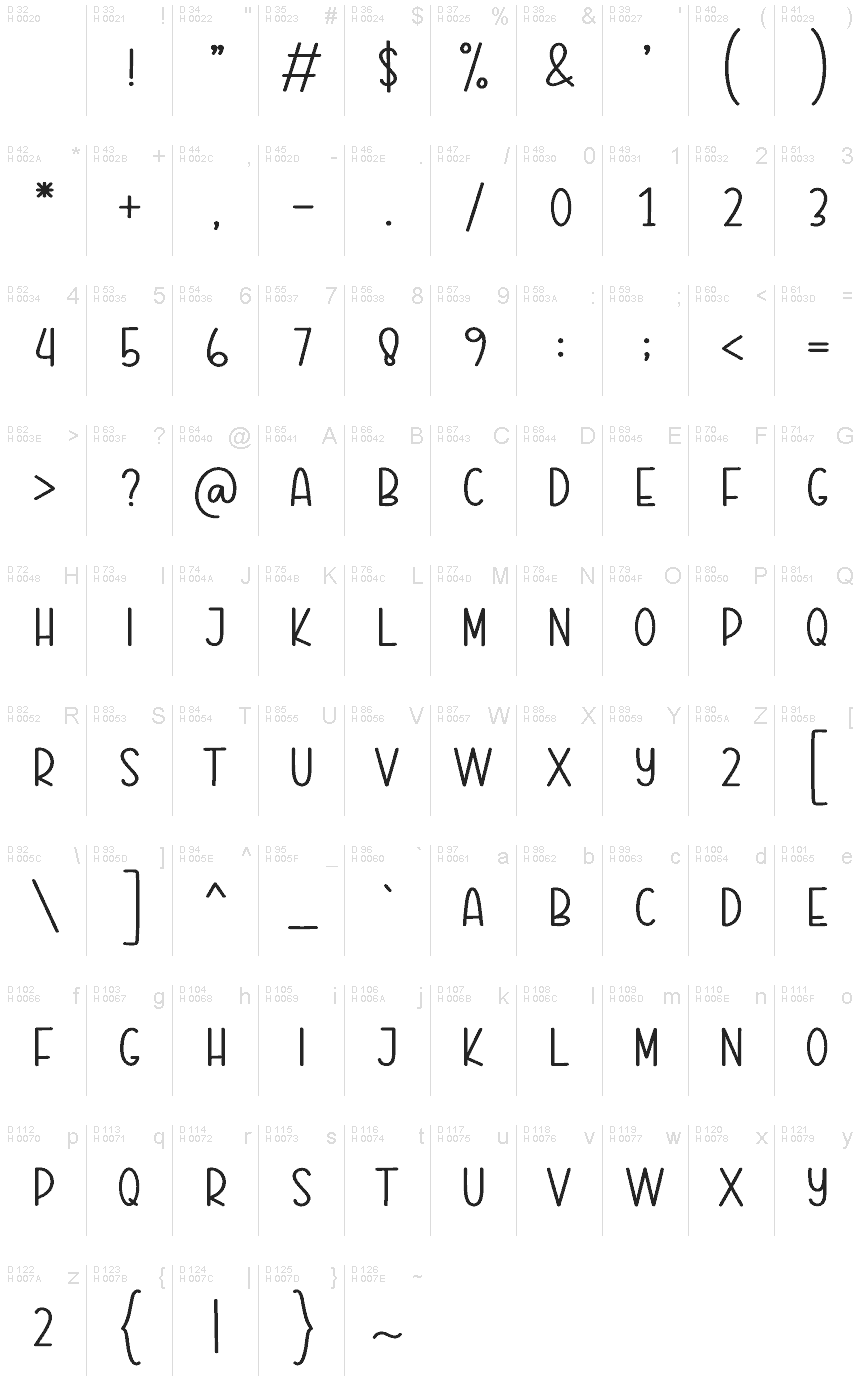
Decoration Creative
Decoration Creative font by Scratchones harmoniously mixes handwritten and retro styles in a condensed typeface. Casual, friendly, and approachable, this modern artistic lettering communicates effectively to deliver fluidity and movement through your design. Exhibit a welcoming persona that is suitable for all readers.
This free handwritten font can be the final touch on invitation cards, logos, monogram designs, advertising projects, banners, and posters. Being casual enough for daily tasks yet professional for formal needs makes it ideal for branding ideas that include product packaging. A set of social media posts is another possible filter making decoration creative worthy of trying.